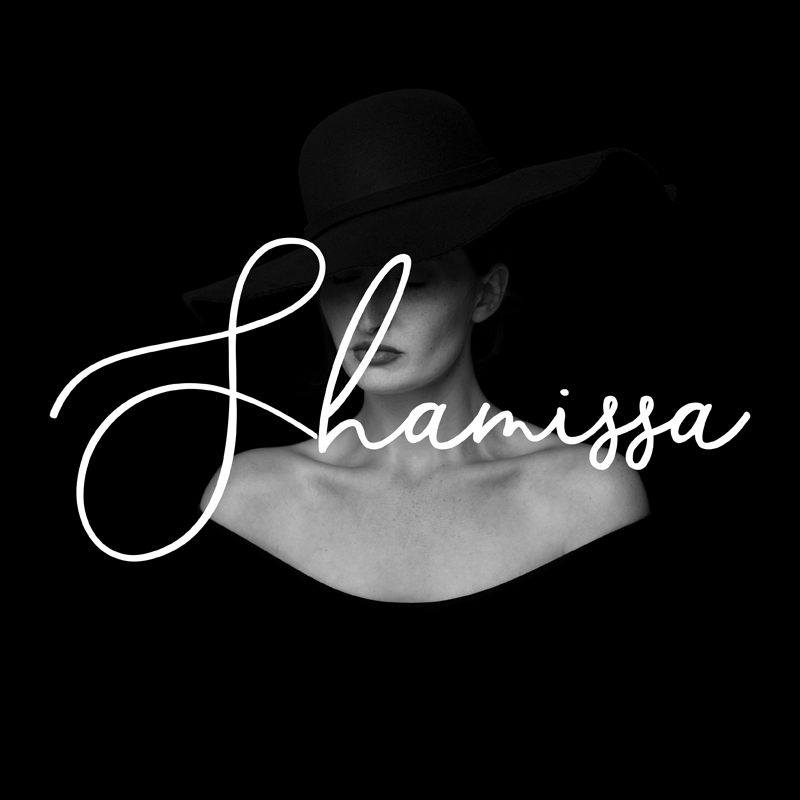
Preview and download Shamissa Font. Created by Tedi Rohmansyah in Script Handwritten styles with Free for personal use license.
Shamissa a font work that is purely handwritten, has its own characteristics with the style of Script font. this is perfect for invitations, signatures, blogs, social media, business cards, product brands. Shamissa has Stylistic standard, Stylistic Alternate, Stylistic Sets . and includes uppercase and lowercase letters, numbers and punctuation marks. The Features of this fonts is; * Standart ligatures * Stylistic Alternates * Contextual Alternates * Stylistic sets File font Almonds Include; * Shamissa (OpenType,PUA) * Shamissa (TrueType, PUA) OpenType features can be accessed by using OpenType smart programs such as Adobe Photo Shop, Adobe Illustrator, Adobe Indesign, Corel Draw and Microsoft Office. can also be accessed through the character map. special greetings for all, all of us all smoothly in running the routin https://thehungryjpeg.com/store/hai-studio https://www.creativefabrica.com/designer/tedirohmansyah5/ |